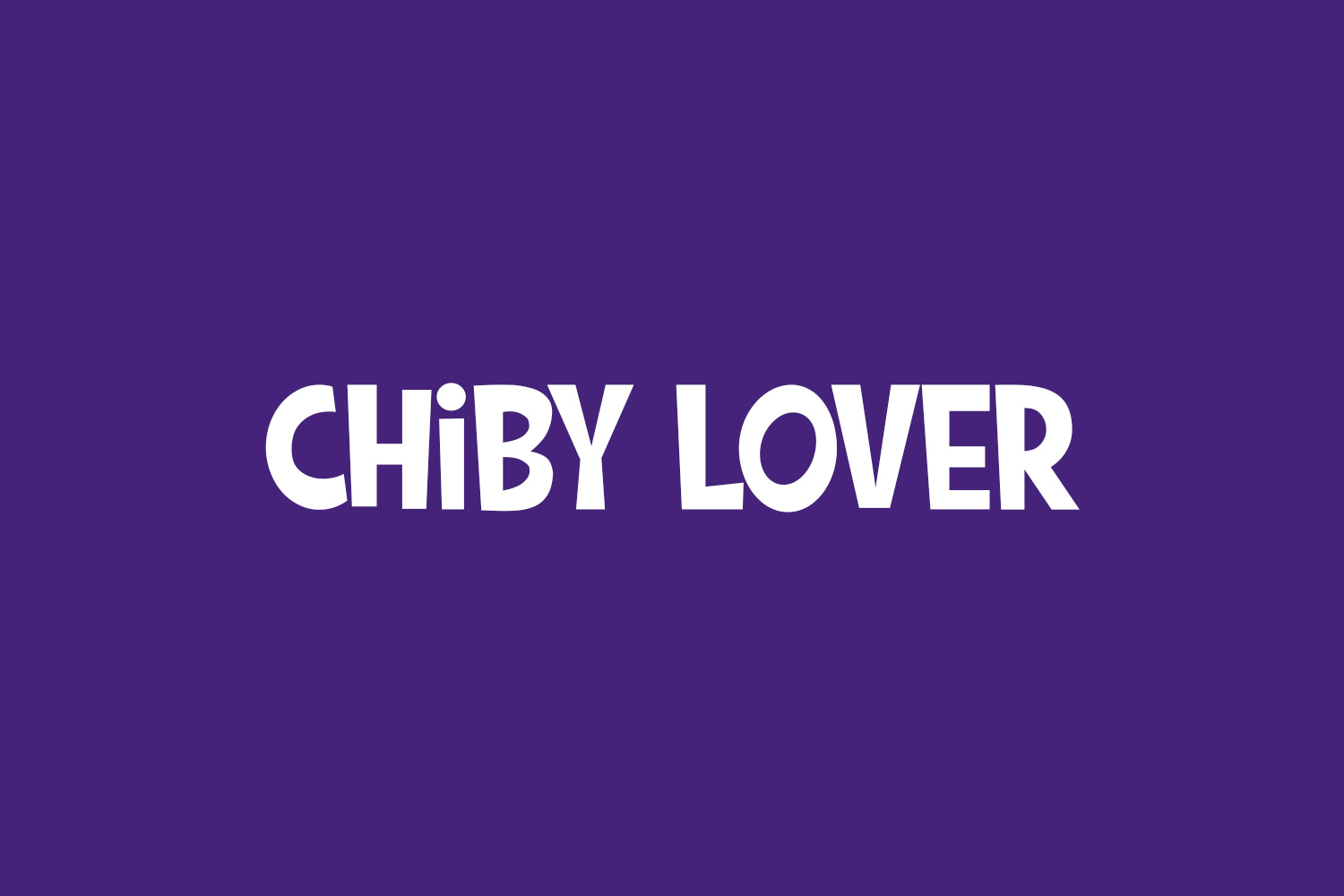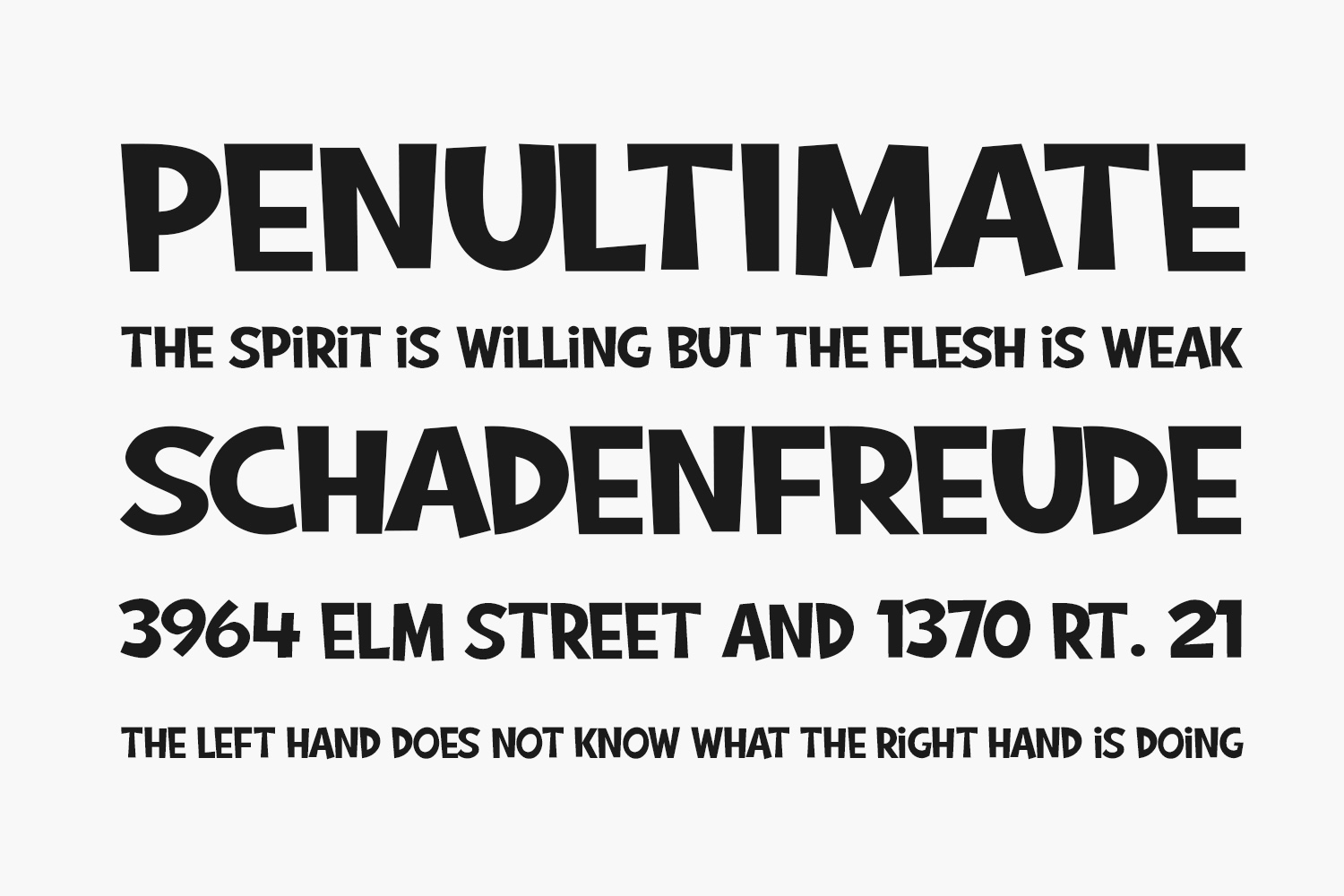
Chiby Lover Free Font is a bold and colorful display font. Its friendly feel makes this font incredibly versatile, fitting a wide range of contexts. Add it to your creative ideas and notice how it makes them stand out. Chiby Lover Free Font was designed by Fachranheit and is free for personal use only. Please purchase the full version for commercial use.